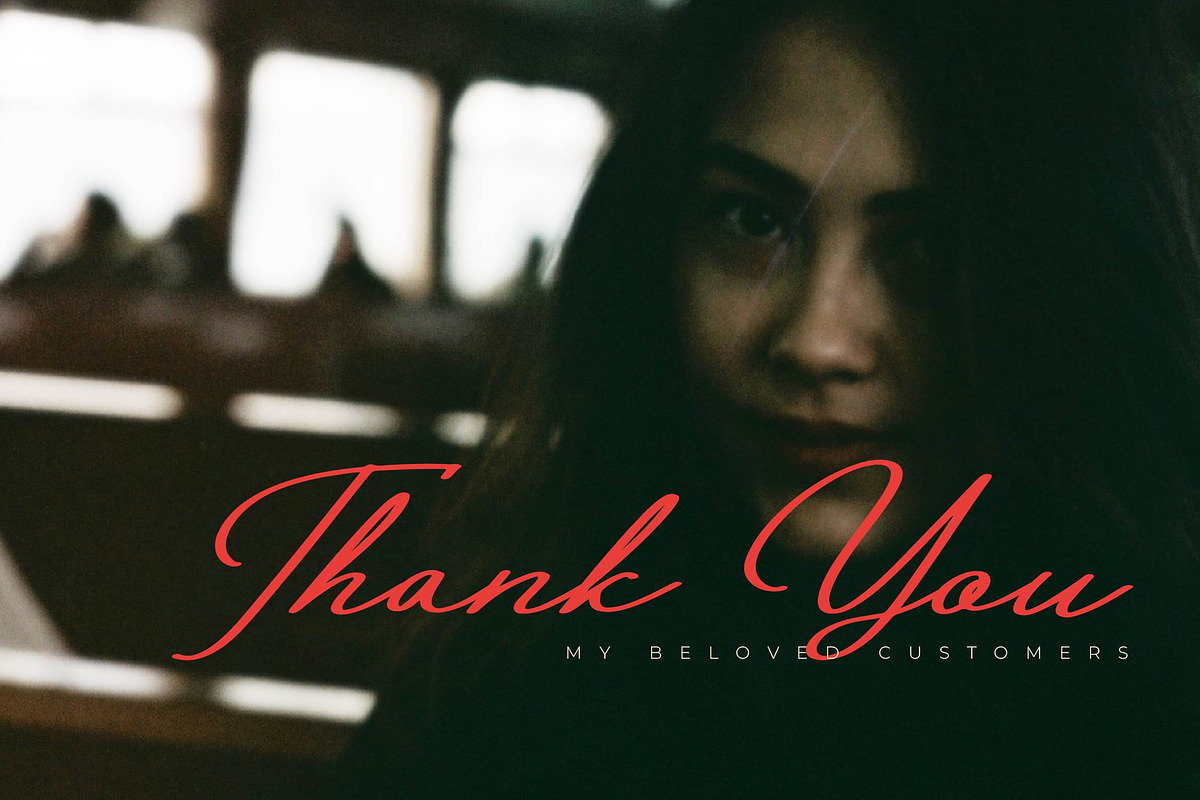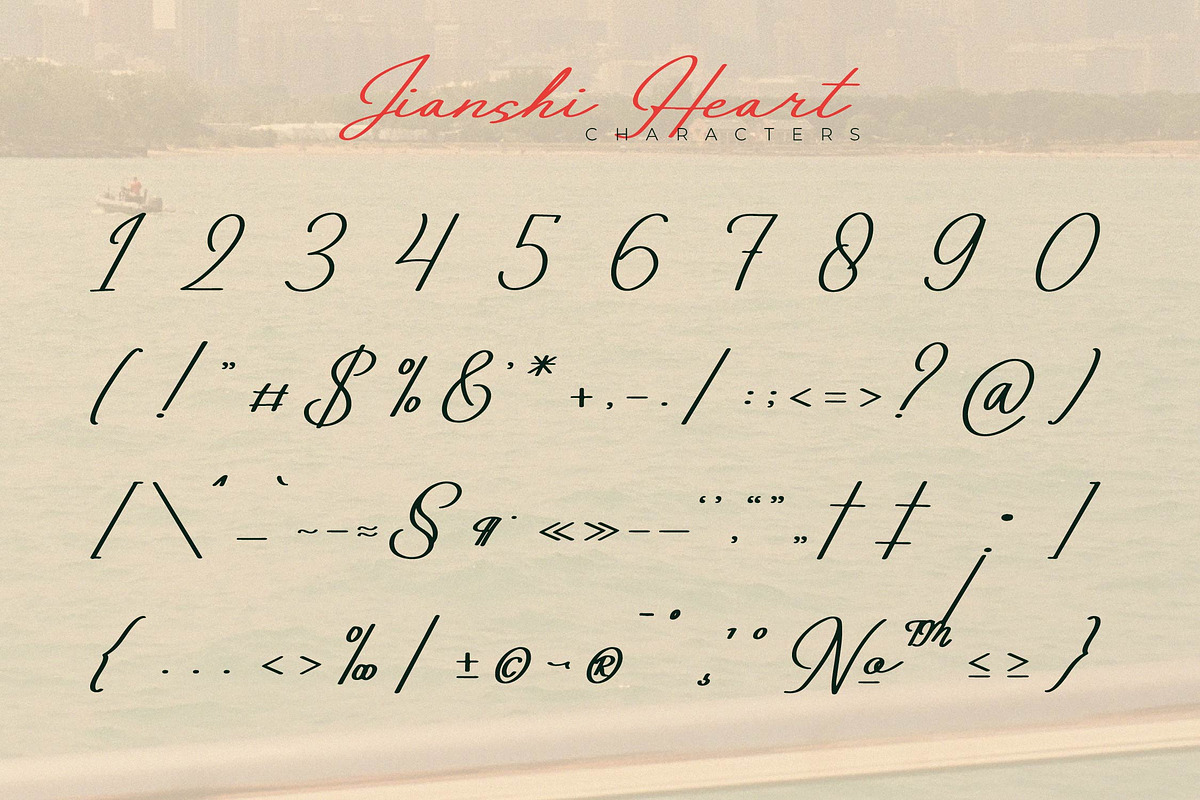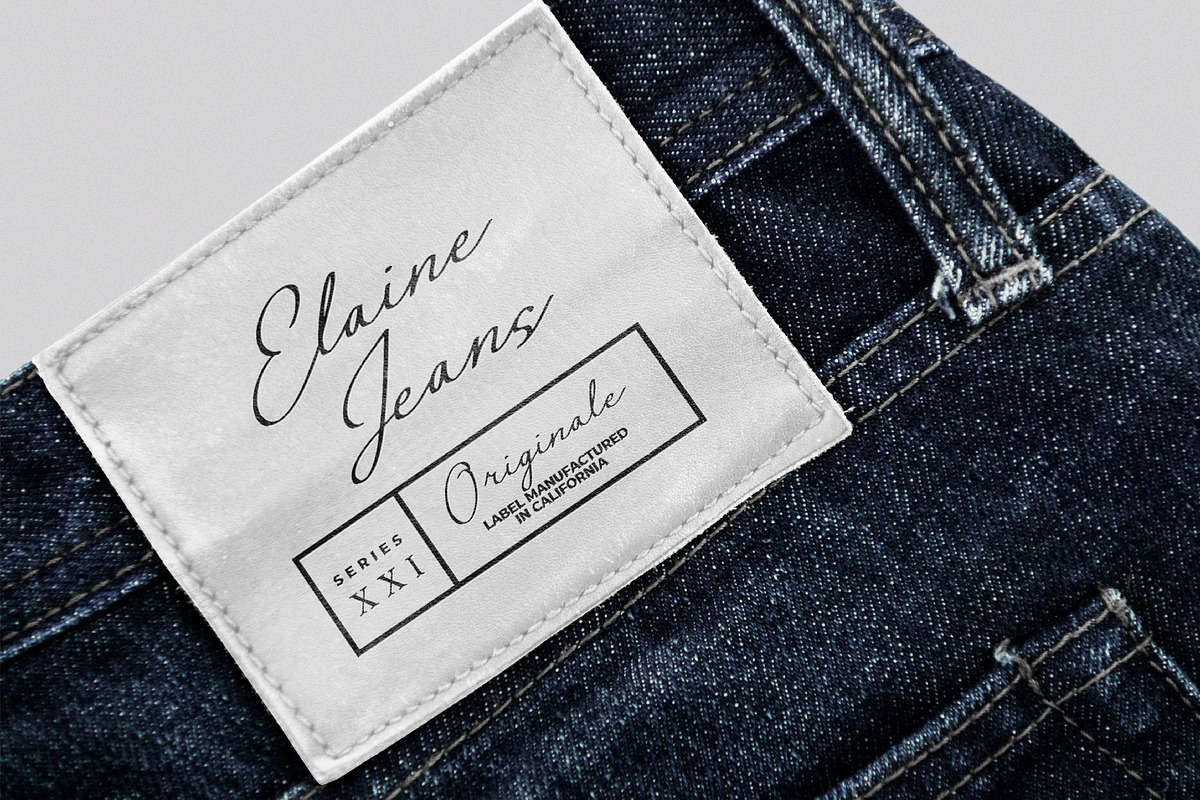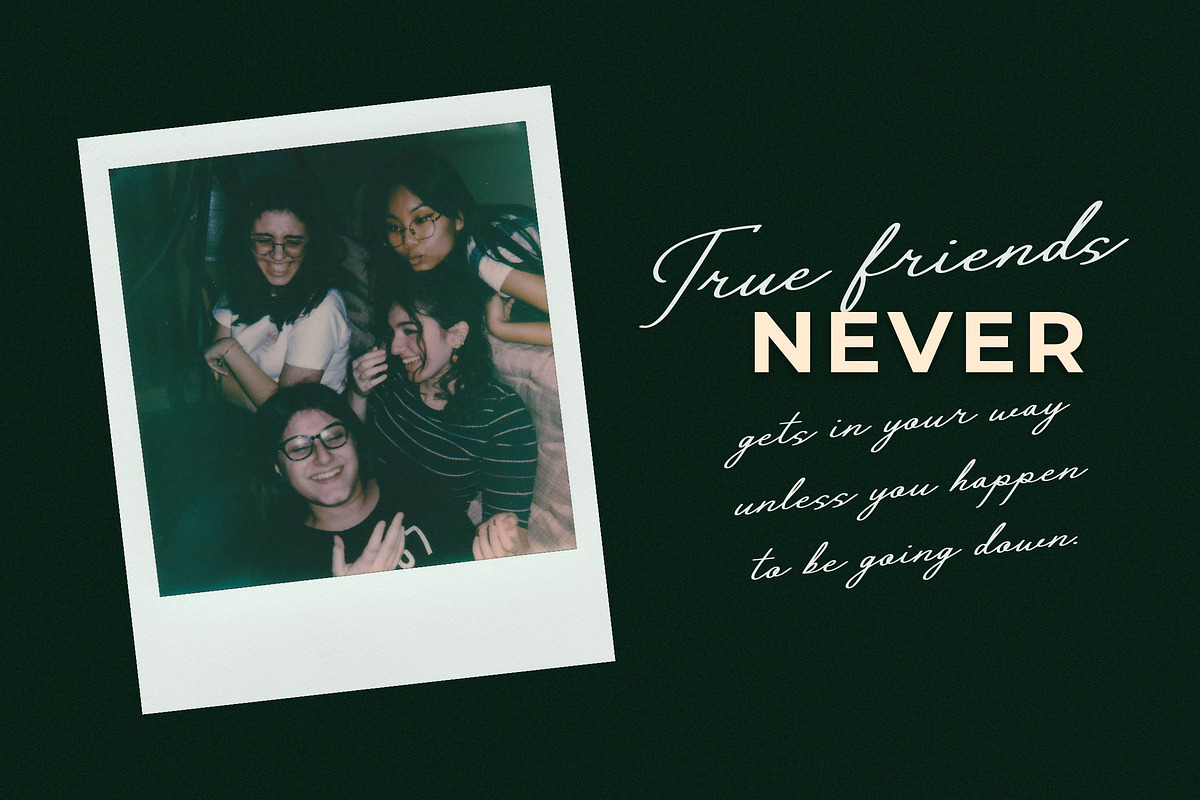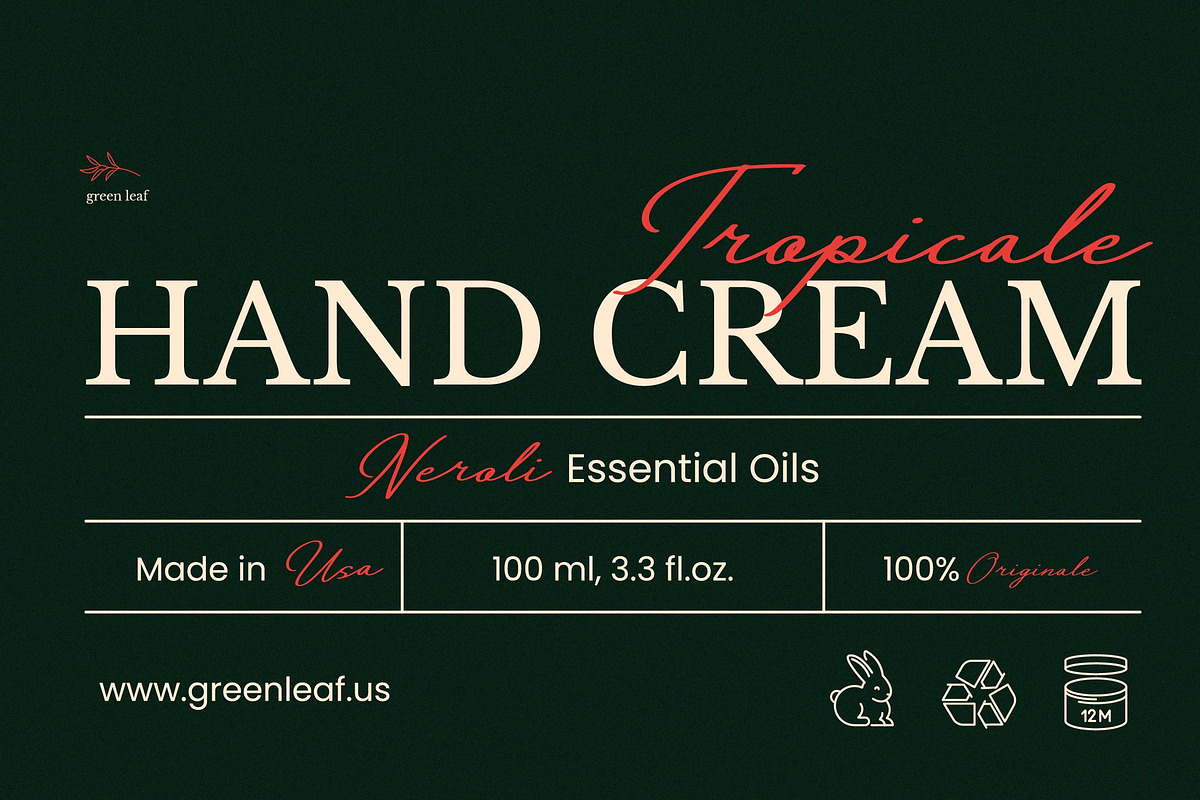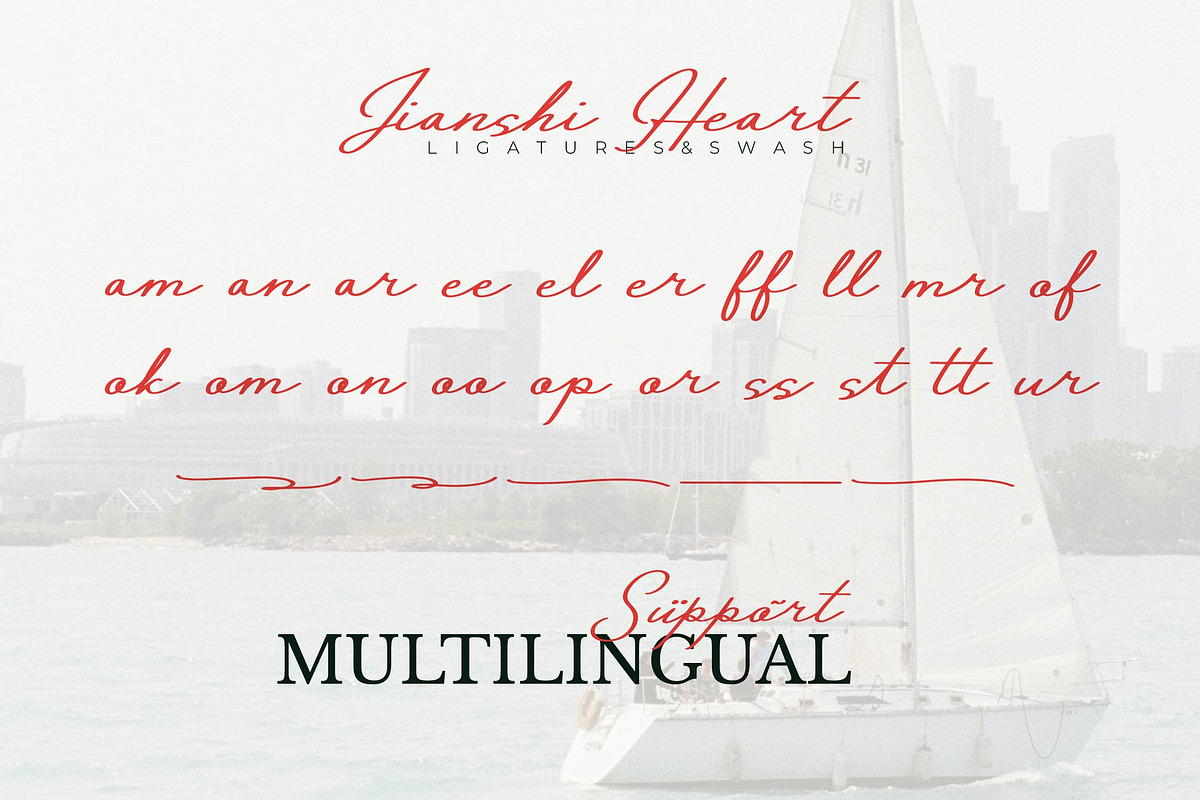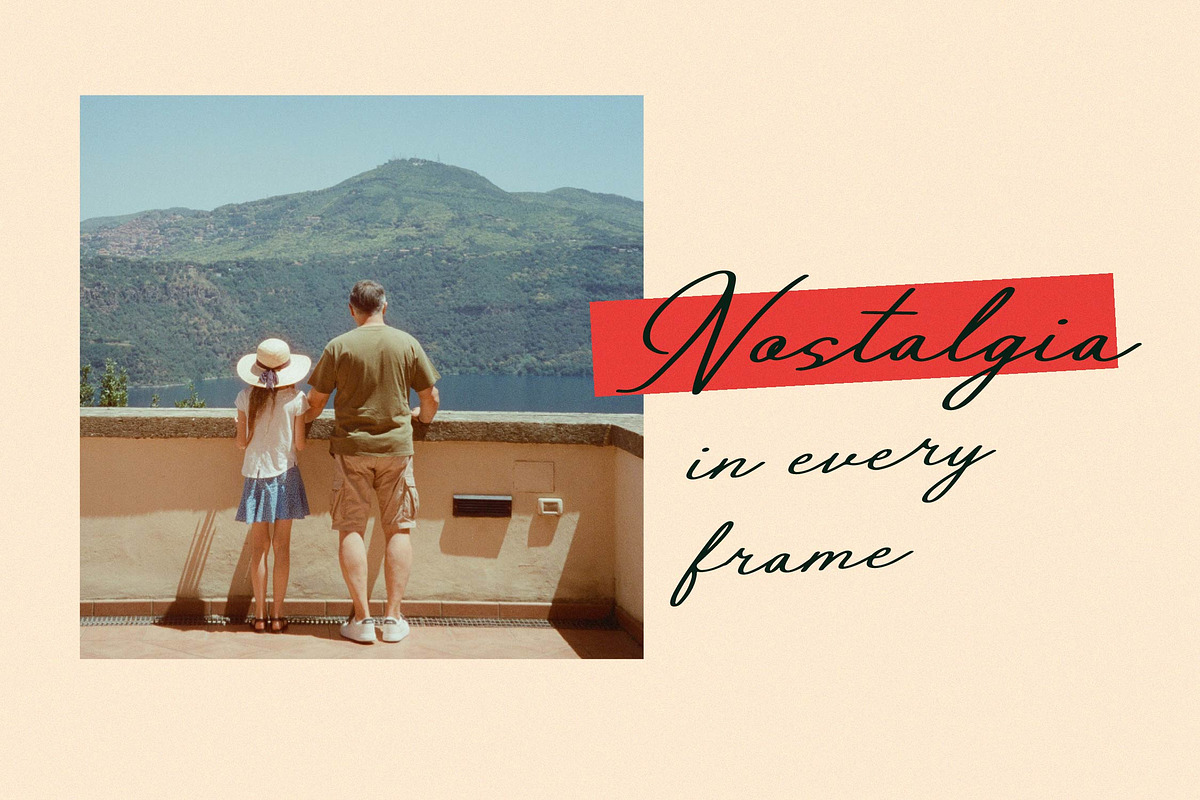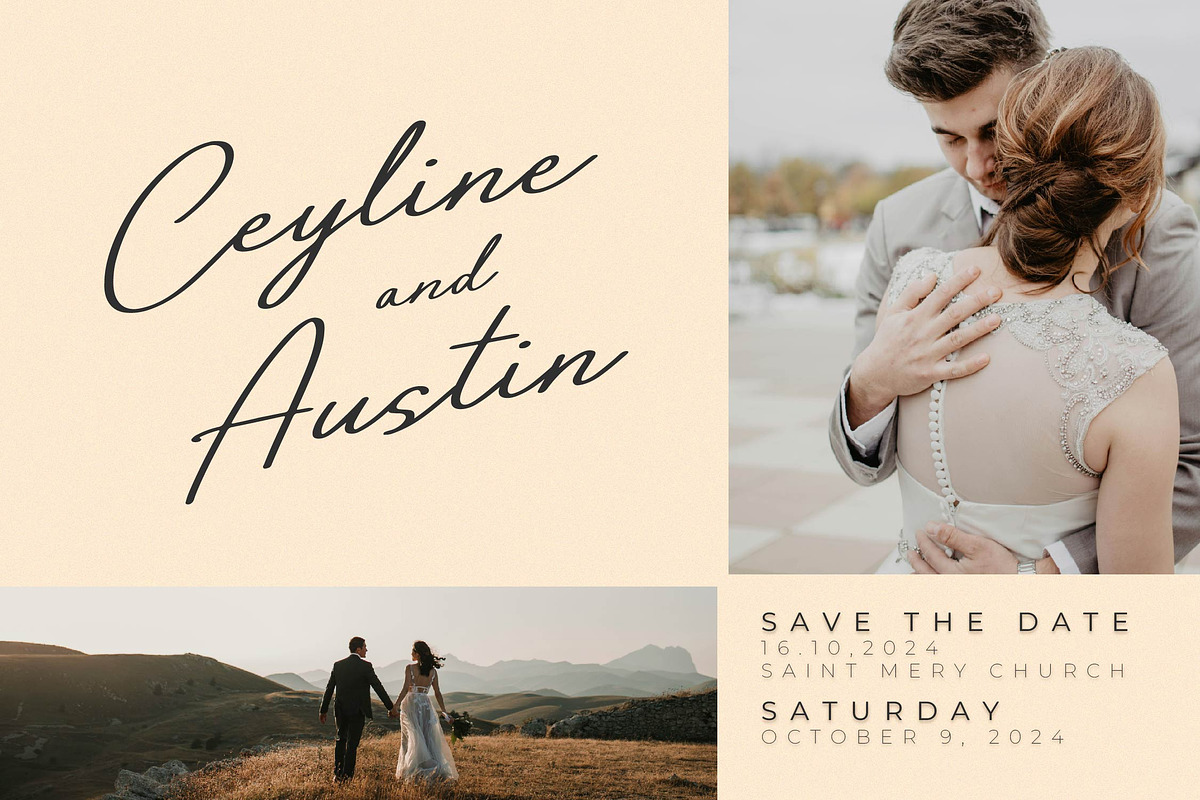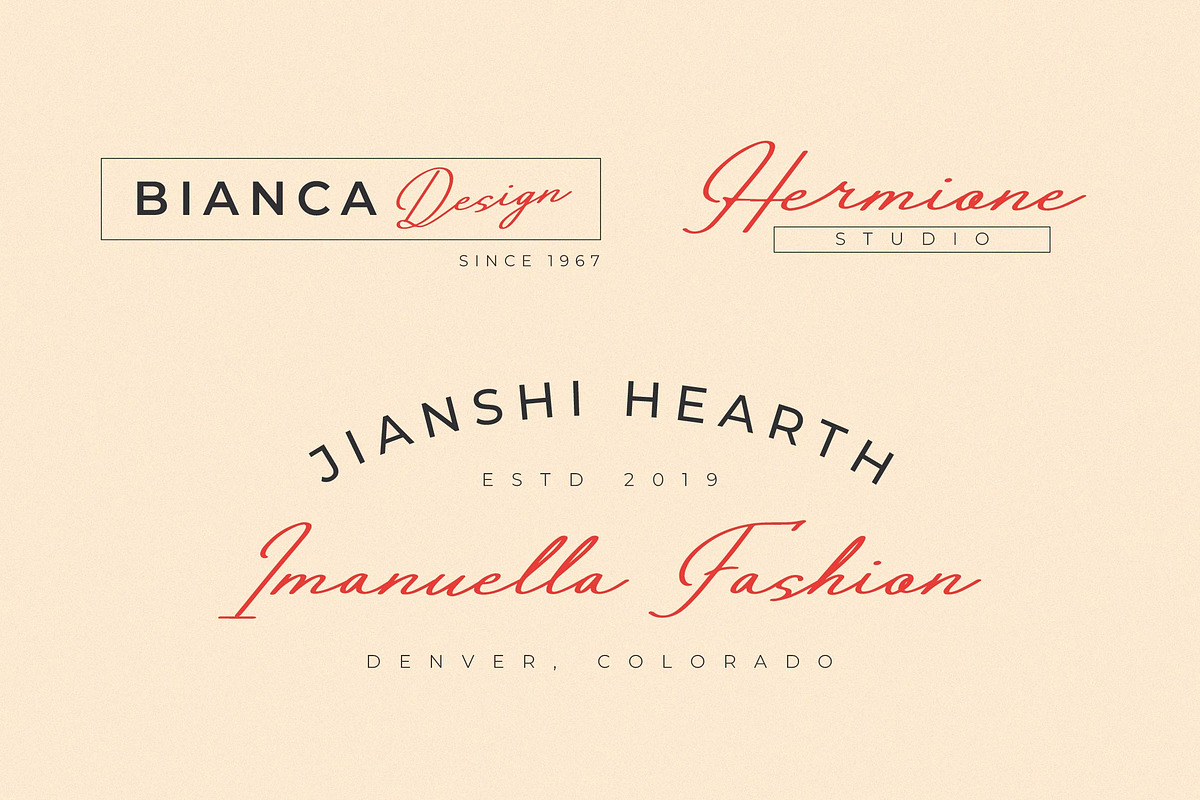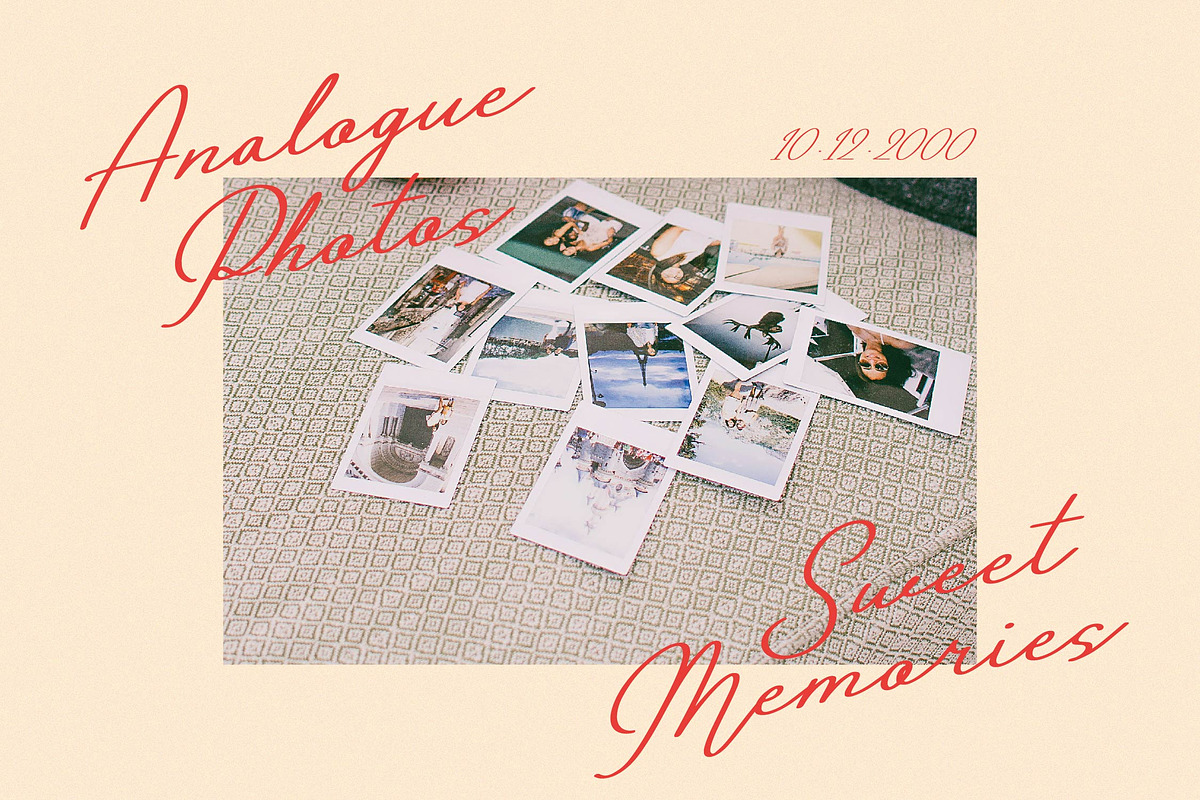
Jianshi Hearth | Monoline Signature
Jianshi Hearth | Monoline Signature, from Gracetypestudio, suitable for any projects such as: logos, branding projects, homeware designs, product packaging, mugs, quotes, posters, shopping bags, t-shirts, book covers, name card, invitation cards, greeting cards, label, photography, watermark, special events, and all your other lovely projects that need a beautiful script taste.